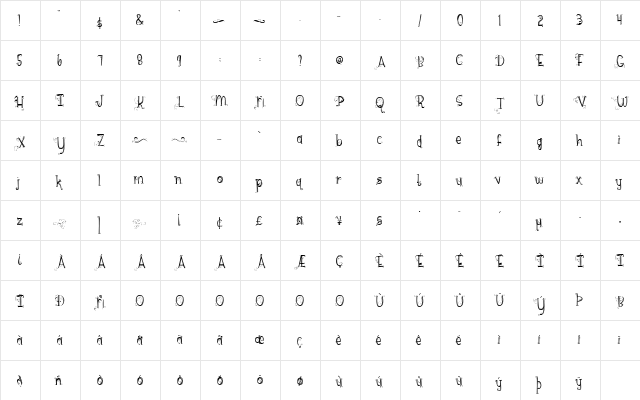
{hazel grace} Regular
| Designer | Brittney Murphy |
Design Context for {hazel grace} Typeface
{hazel grace} is a composed and adaptable typeface that performs quietly and consistently across a wide range of design contexts.